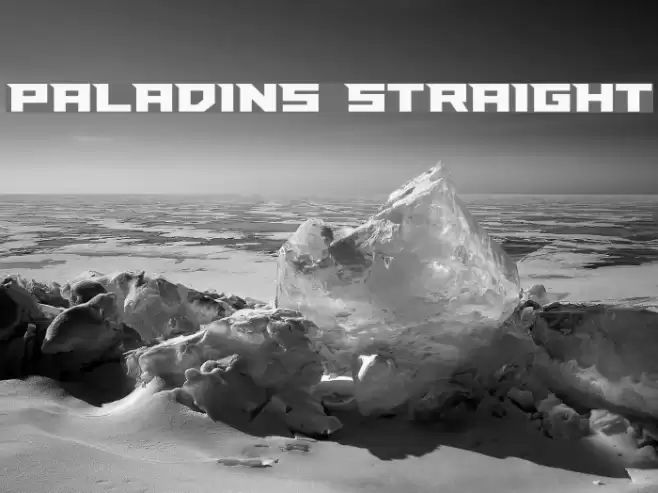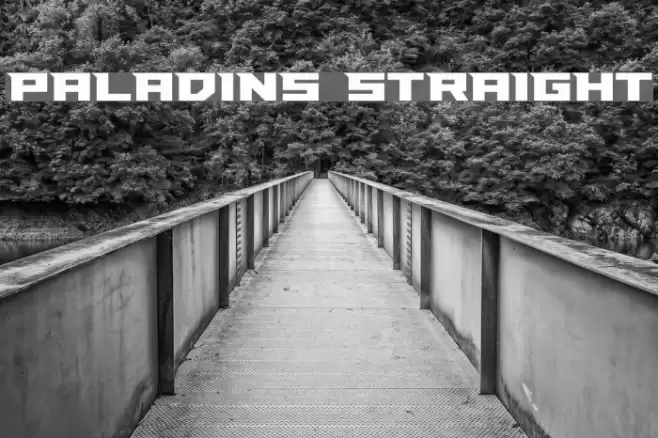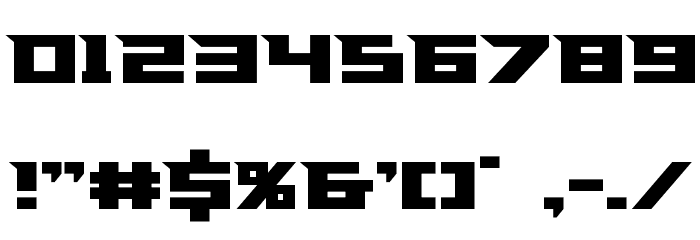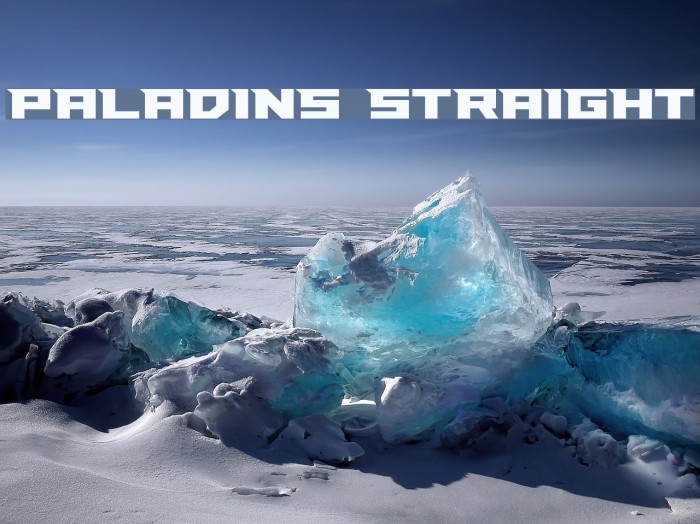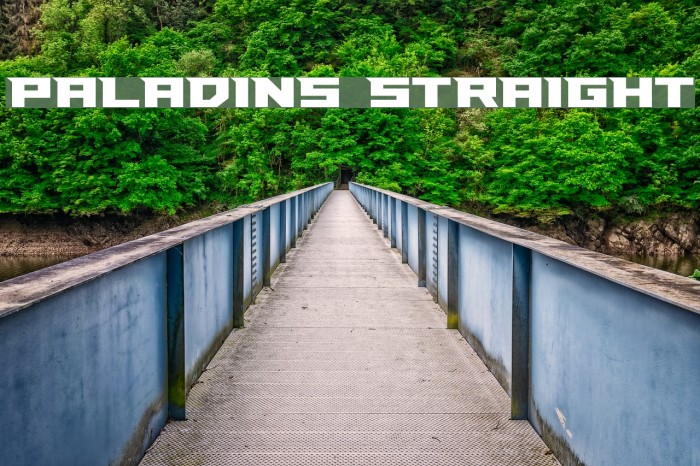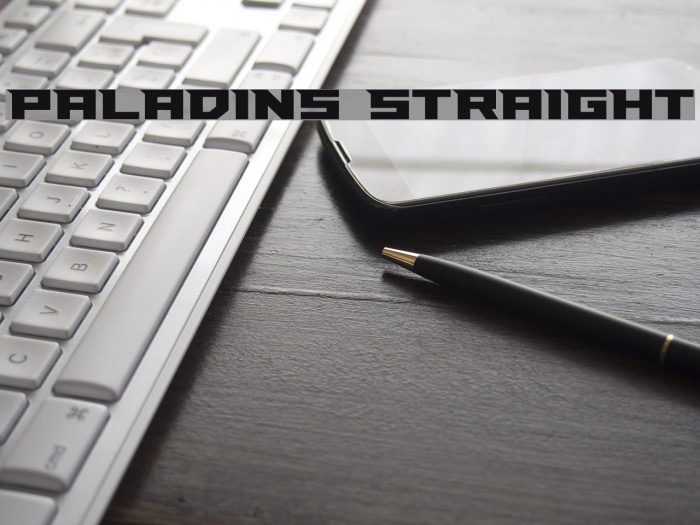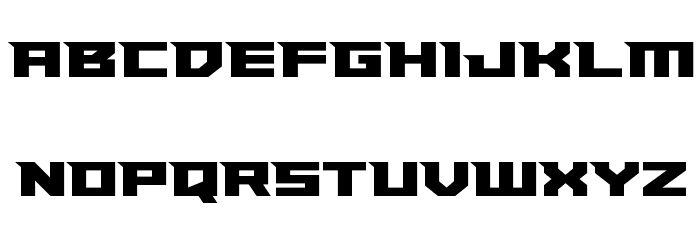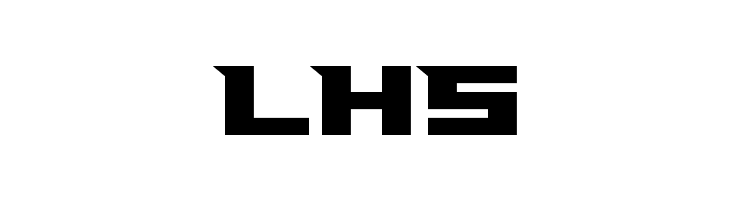
Paladins Straight Font
Paladins Straight Description
This font features a bold, geometric design with sharp angles and a futuristic aesthetic. The uppercase letters are uniform in height, creating a cohesive and structured appearance. The characters are wide, with a consistent stroke width that gives the font a strong and impactful presence. The numbers and special characters maintain the same bold style, ensuring a seamless integration with the alphabet. This font is ideal for projects that require a modern and edgy look, such as video game titles, tech branding, or sci-fi themed designs.
A bold, geometric font with a futuristic and structured design from Uncategorized fonts.
- Proposed Projects: Ideal for video game titles, tech branding, sci-fi themed designs, and modern posters.
- Width: Expanded